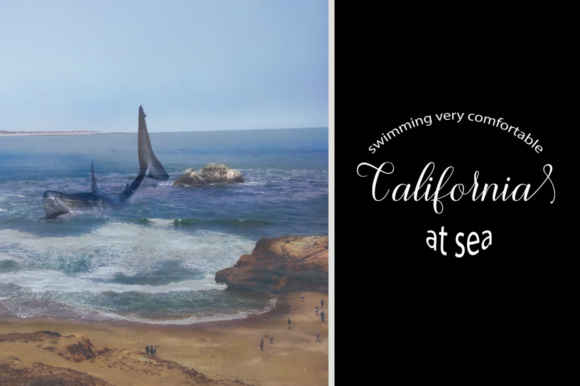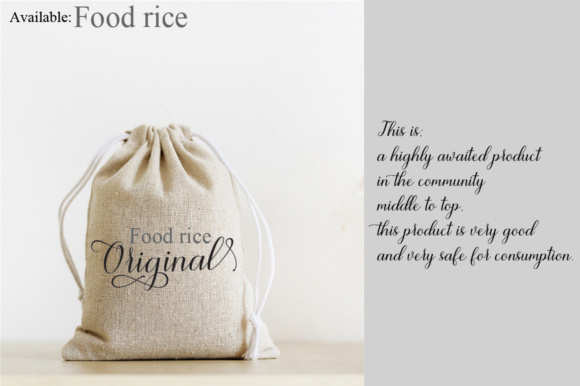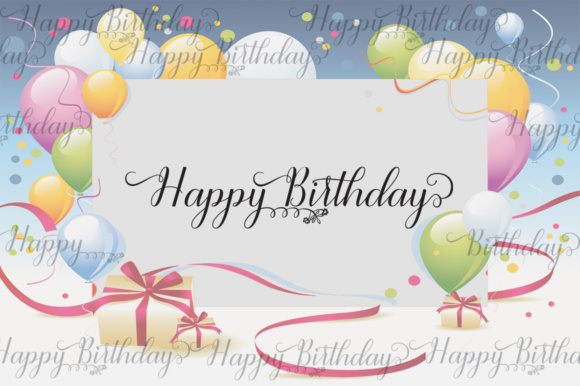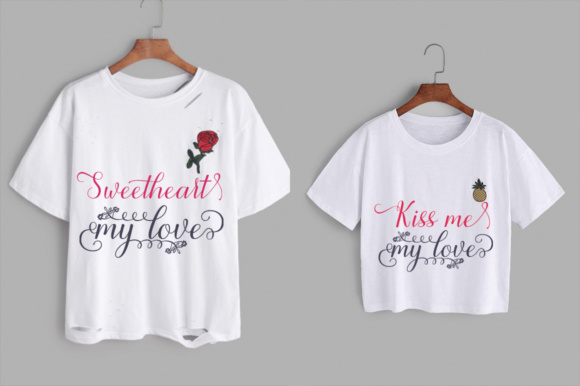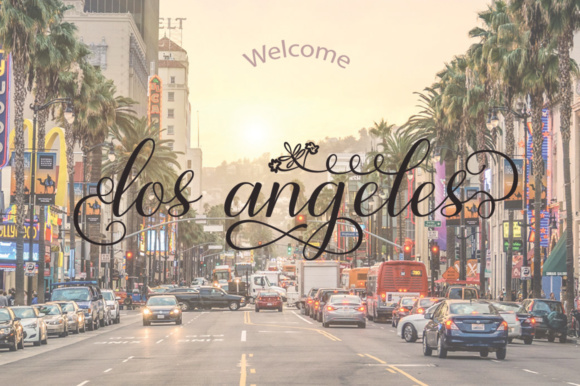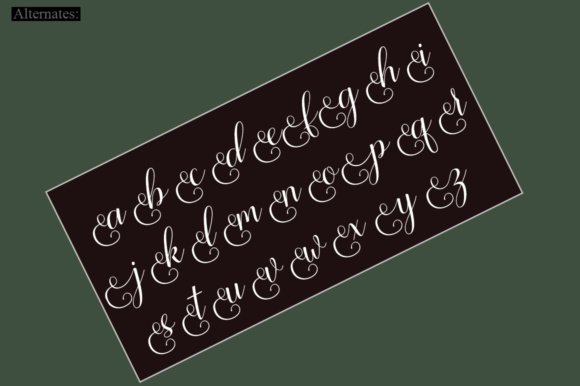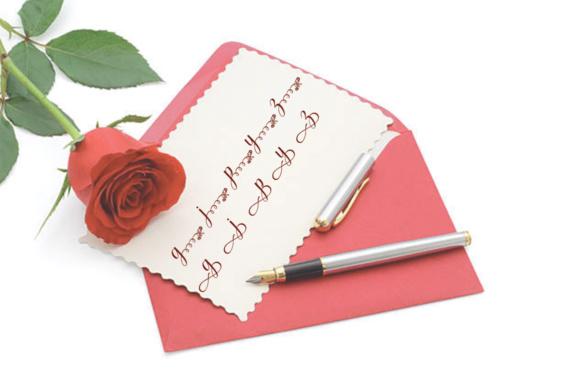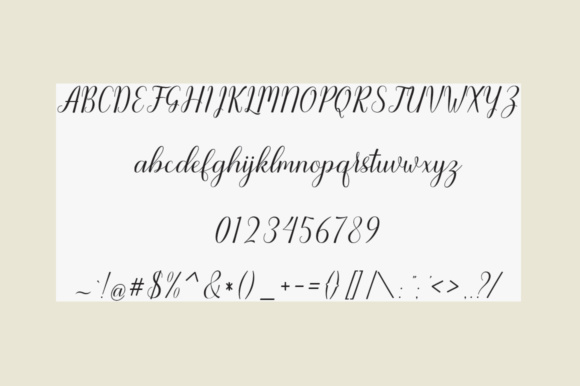
Angeline Font
About Angeline Font
Angeline is a lovely calligraphic-style font with a modern twist.
It has a dancing baseline, and features elegant swashes.